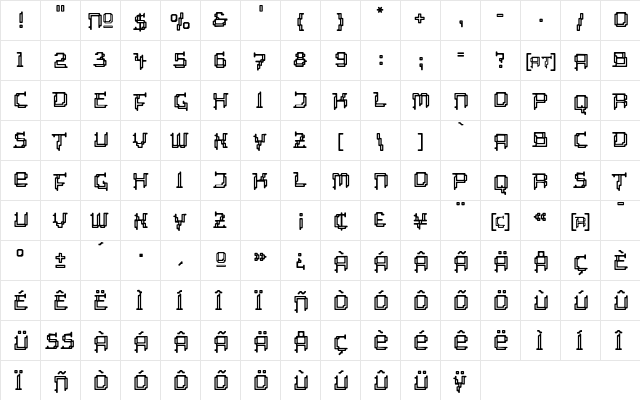
Tipi Electric Inline Regular
Design Context for Tipi Electric Inline Typeface
Tipi Electric Inline has a distinctly futuristic character, with geometric precision and clean angles that feel at home in technology, gaming, and sci-fi contexts.